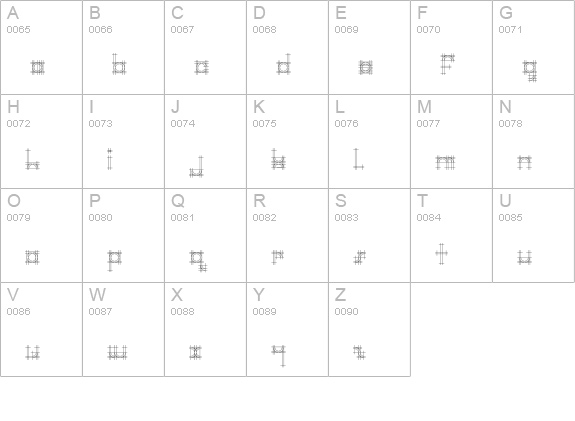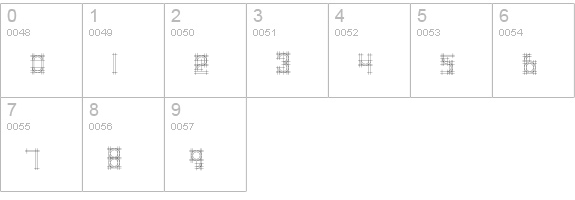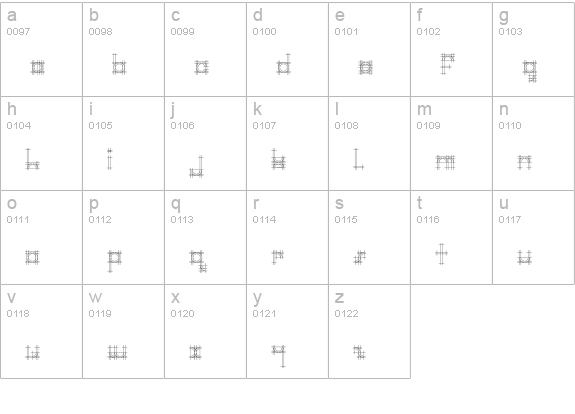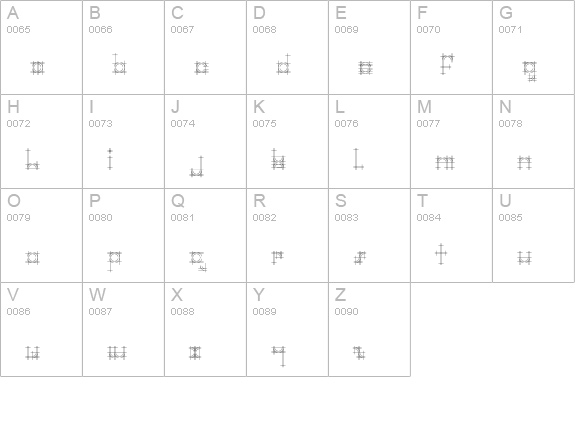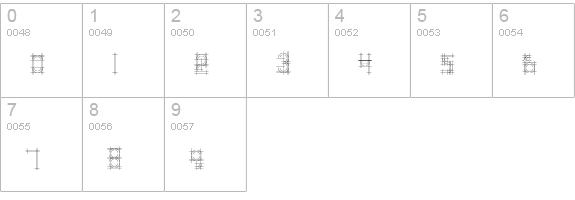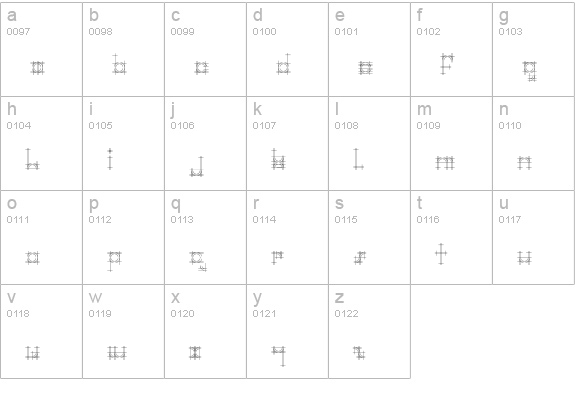
BauhausSketch Font Details
BauhausSketch font is a modern and stylish typeface inspired by the iconic Bauhaus design movement. This unique font features clean lines and geometric shapes that exude a sense of sophistication and creativity. Perfect for adding a contemporary touch to your projects, whether it be logos, posters, or branding materials. The best part? BauhausSketch font is completely free to download at FontsMarket.com. With its sleek and minimalist design, this font is sure to elevate your designs and make a bold statement. Don't miss out on this fantastic opportunity to add a touch of Bauhaus elegance to your projects with the BauhausSketch font. Download it now and unleash your creativity!